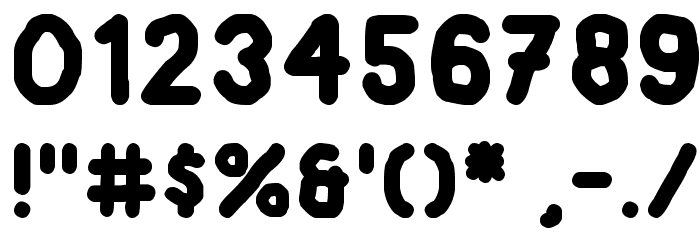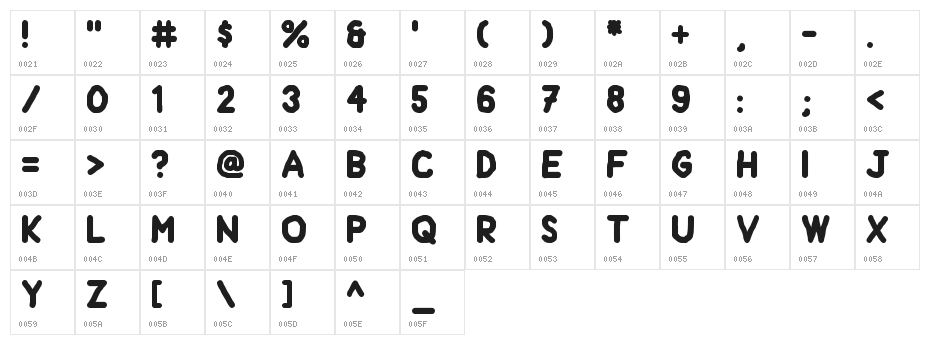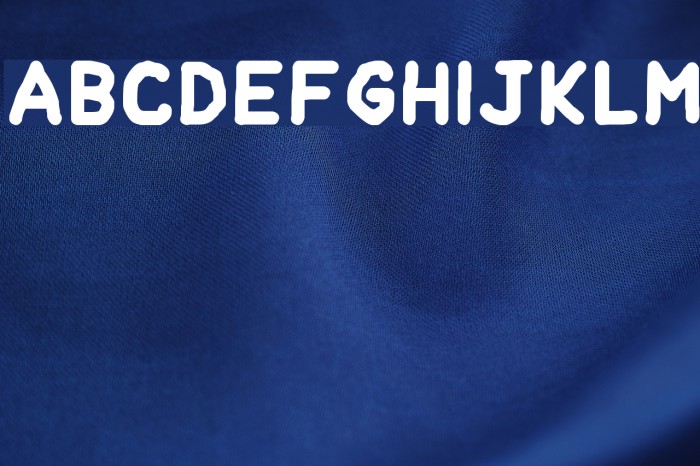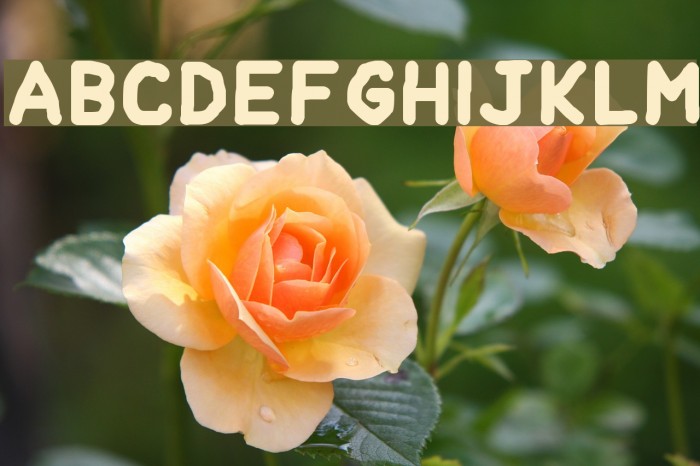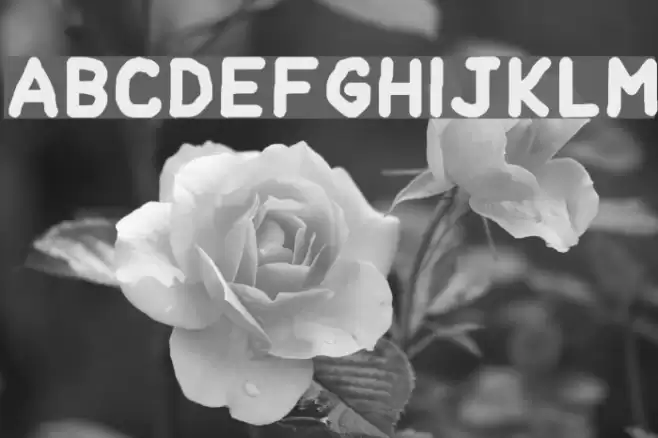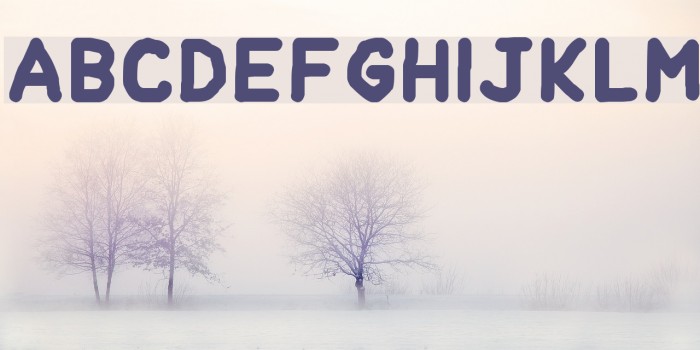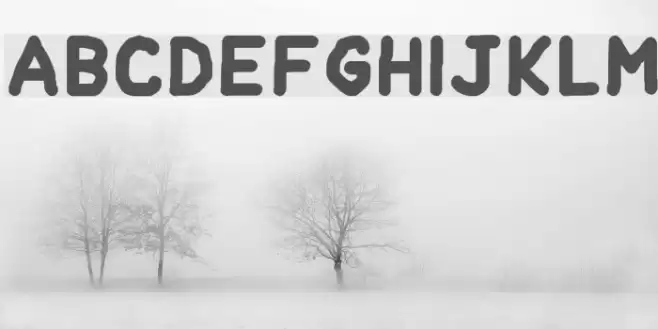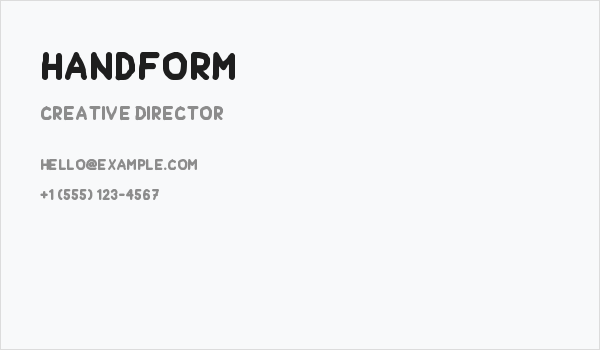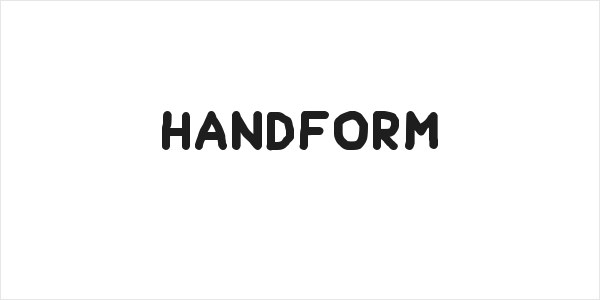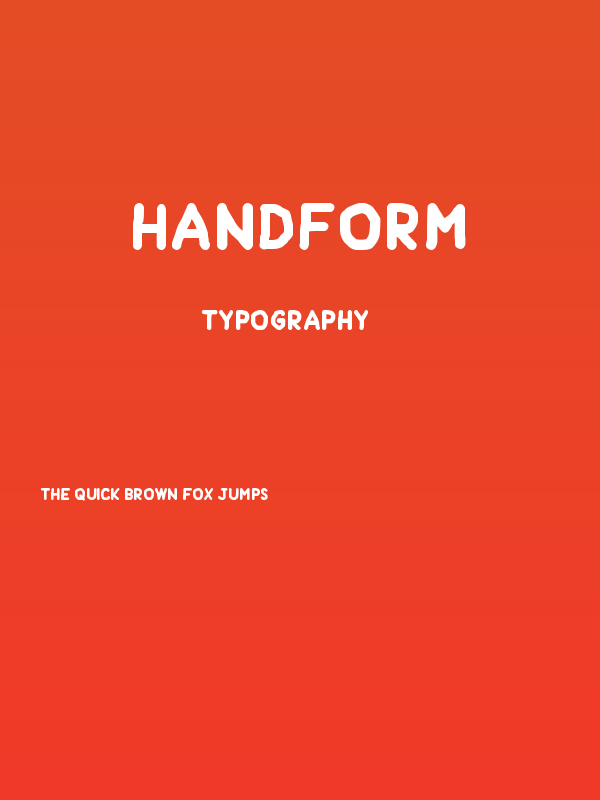
Handform Font
Handform Description
This font features a bold, playful style with rounded edges and a hand-drawn appearance. The characters are evenly spaced, creating a cohesive and uniform look. The strokes are thick and consistent, giving the font a strong presence. Its informal and friendly design makes it suitable for creative and casual projects. The font includes a full set of uppercase and lowercase letters, numbers, and a variety of special characters, ensuring versatility in its application.
| Use Case | Logos, Posters, Creative projects |
| Proposed Projects | Ideal for children's books, playful branding, posters, and creative design projects. |